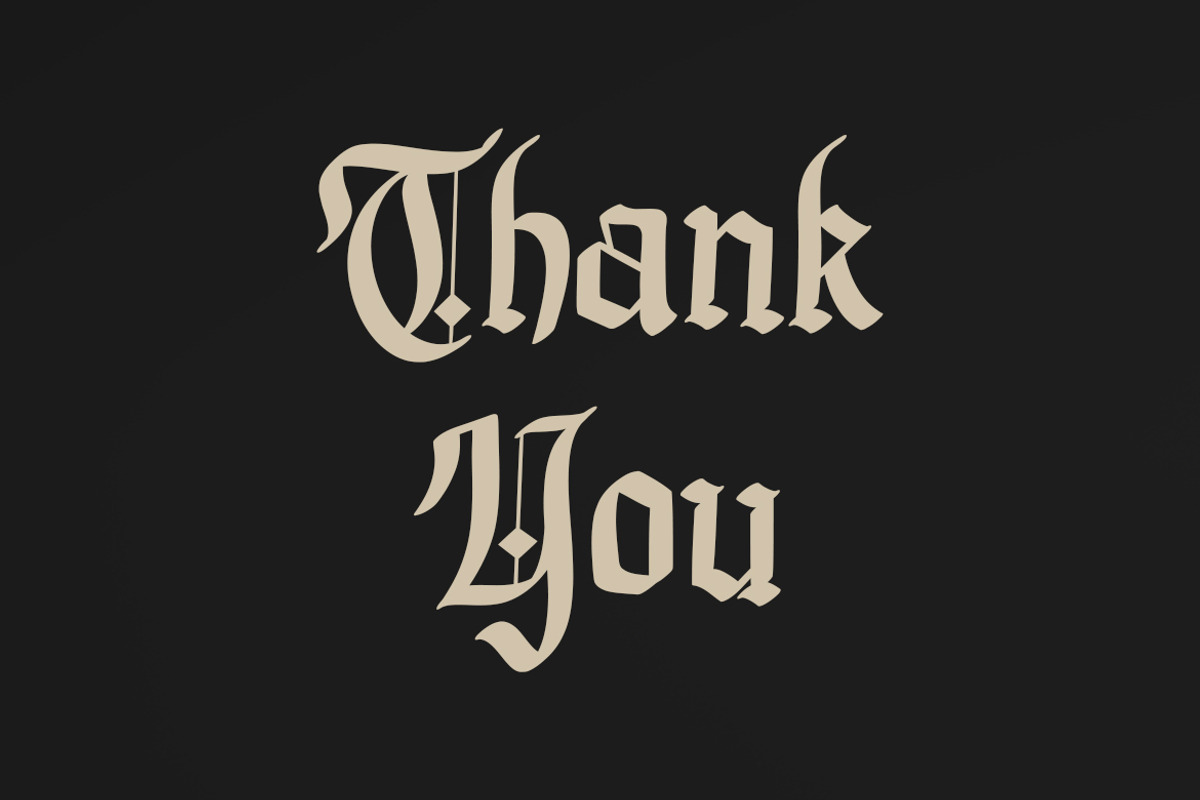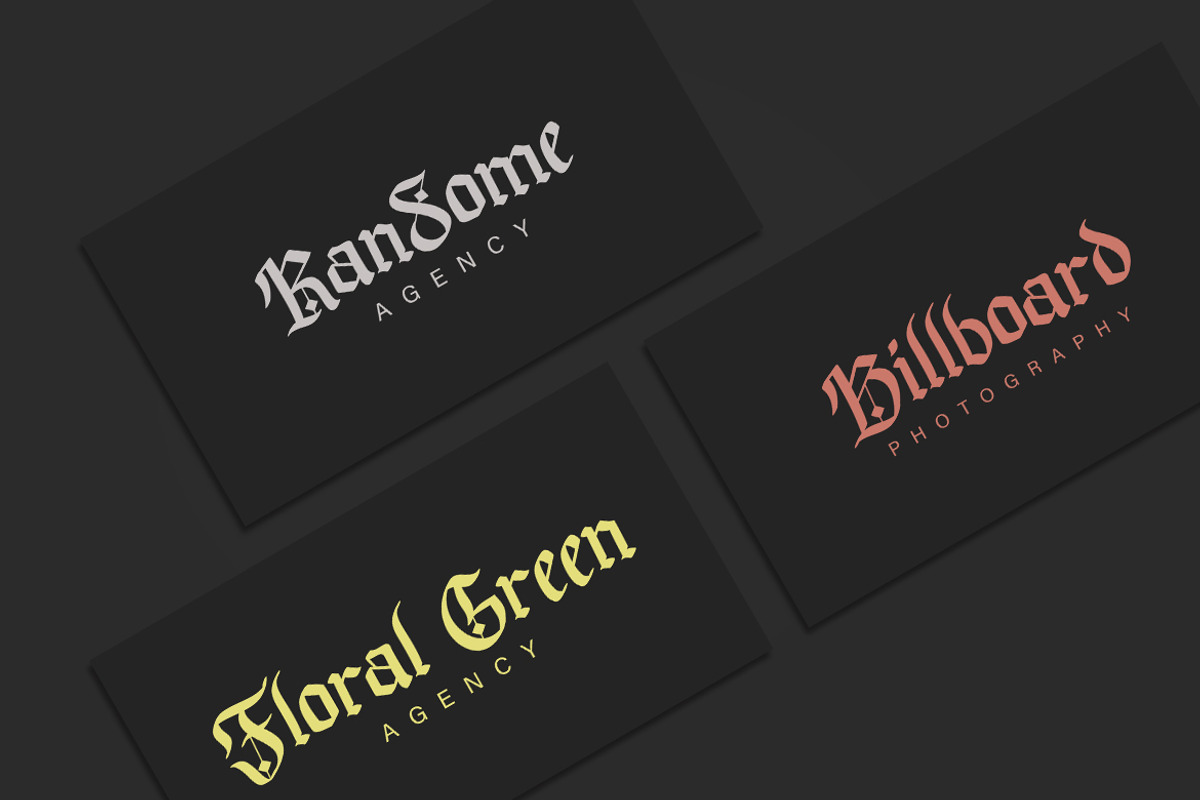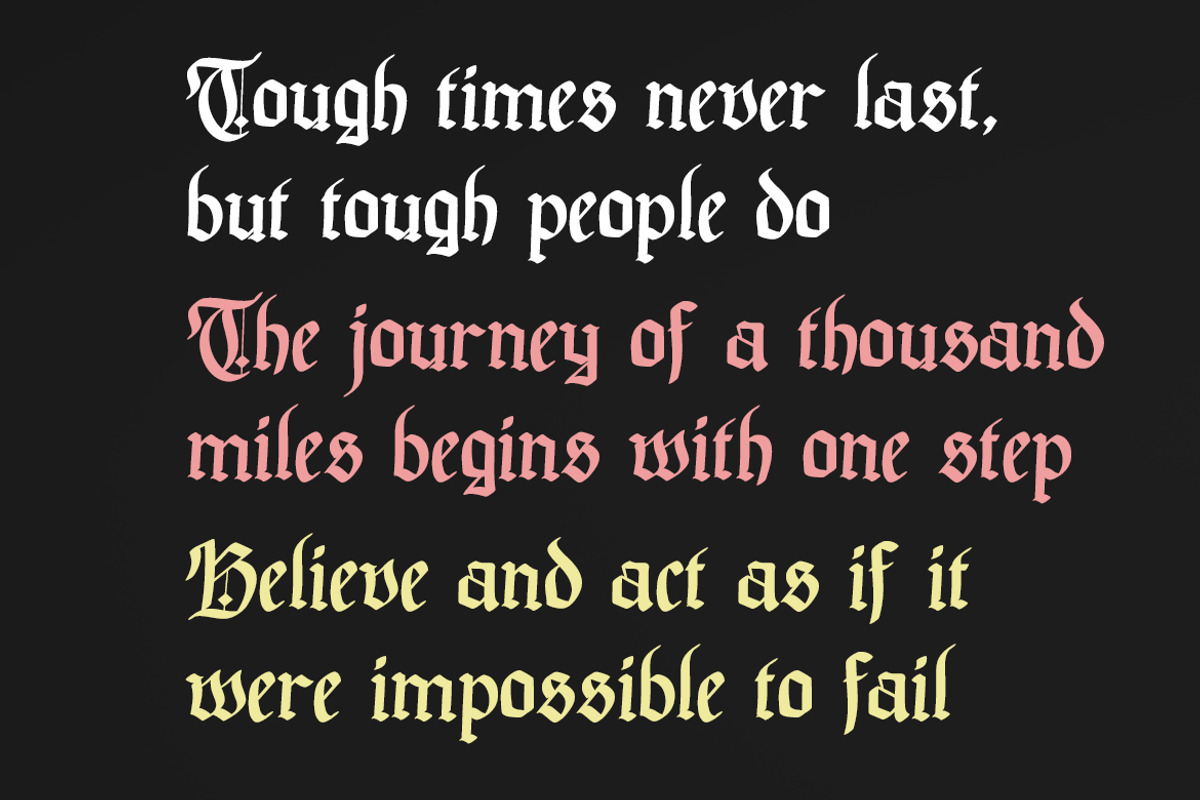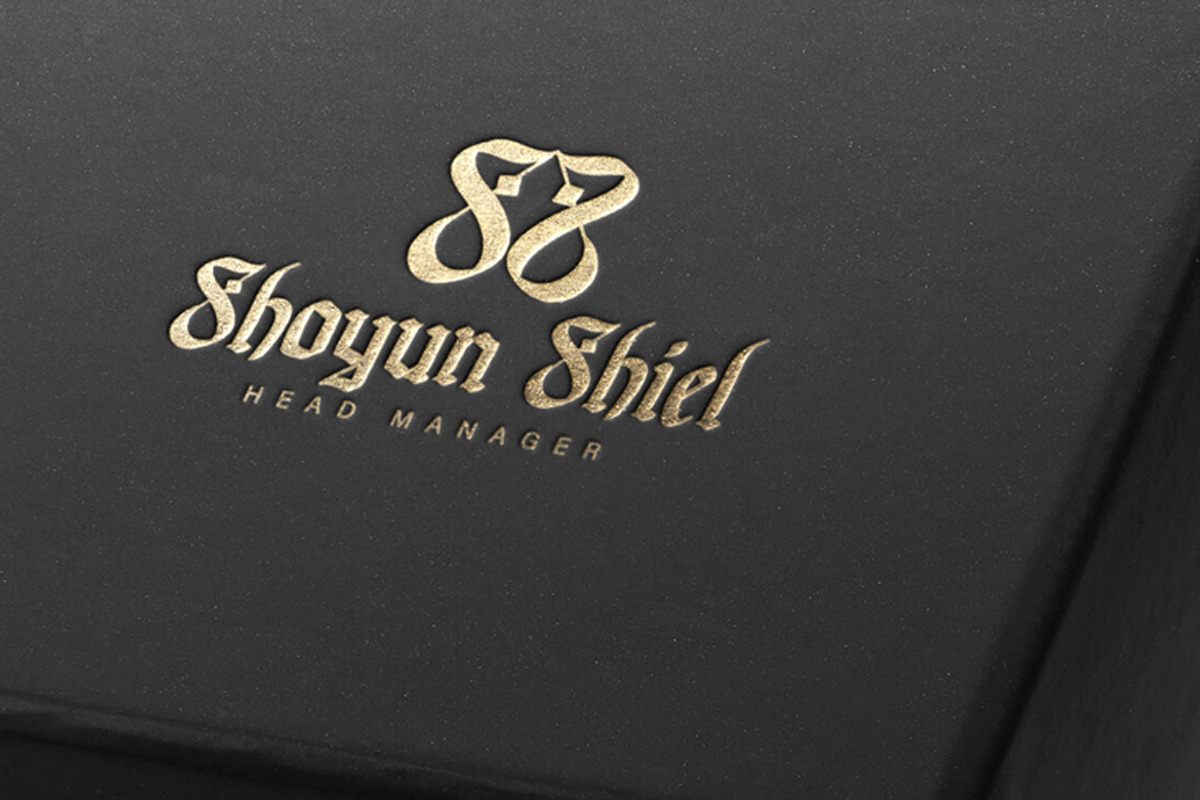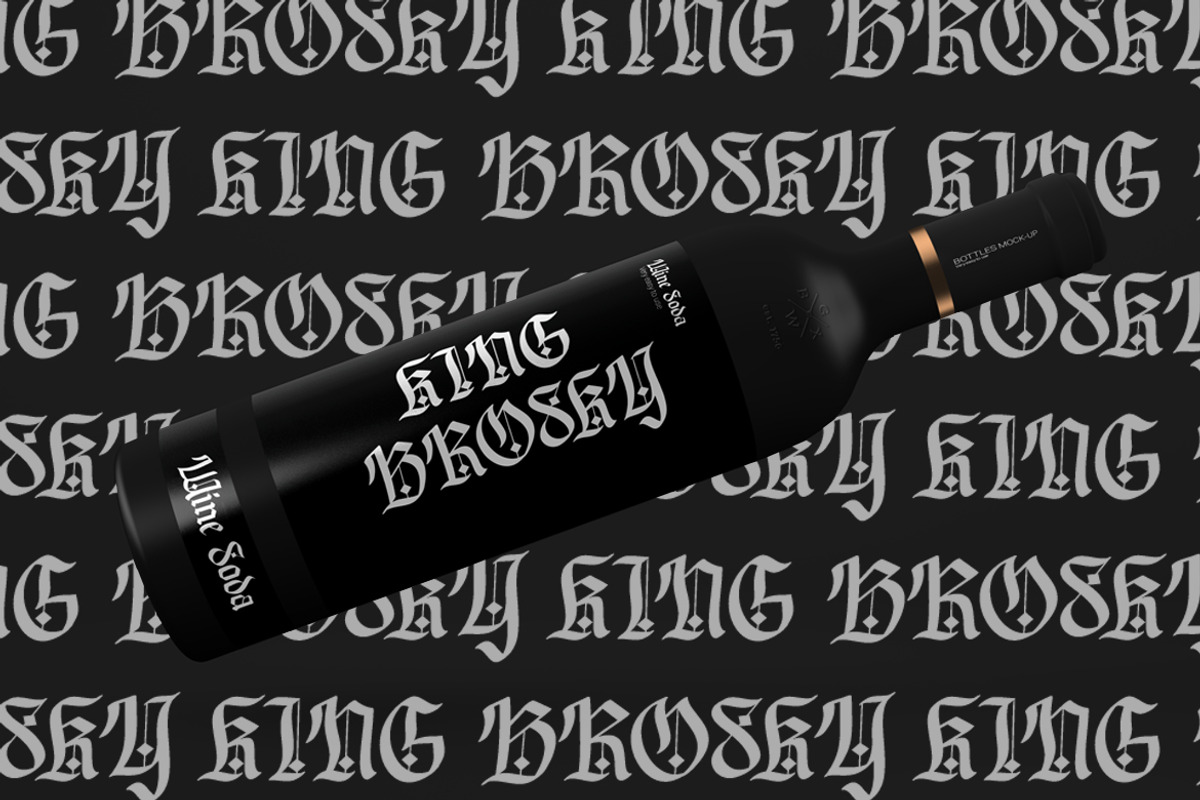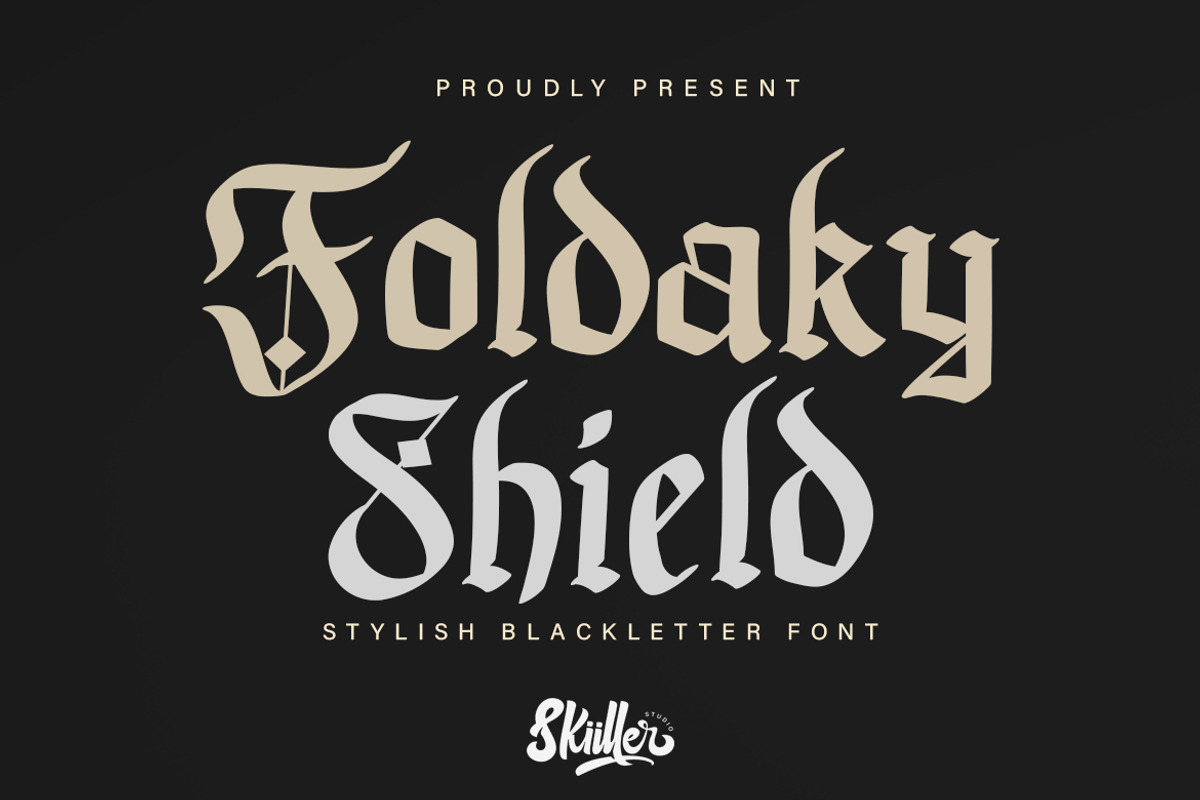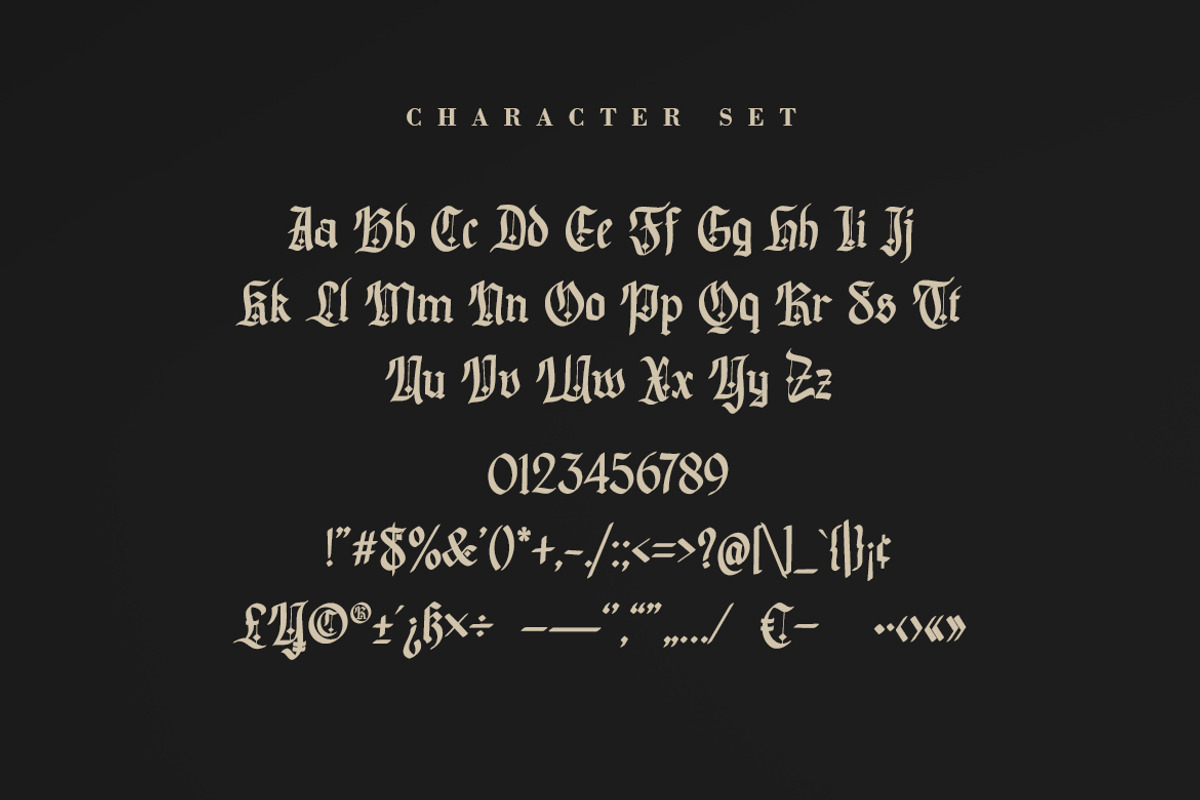
Foldaky Shield Blackletter Font
Foldaky Shield Blackletter Font type with a rapi so it looks elegant, suitable to support a variety of designs and your business